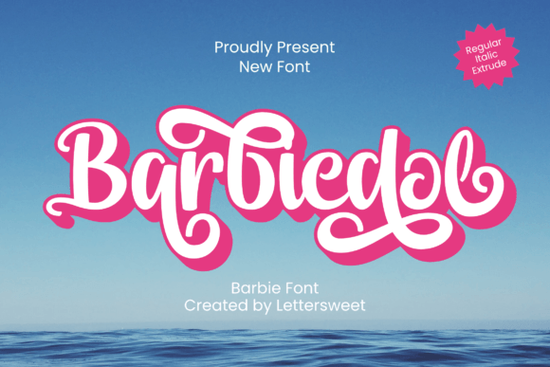
If you’ve been searching for a playful, feminine script that captures the charm of classic animated movies especially those with pink convertibles and dreamy wardrobes you’ll want to take a closer look at the Barbiedol Font. Designed with whimsy and elegance in mind, this script font draws direct inspiration from the visual style of Barbie films, making it ideal for invitations, greeting cards, apparel designs, and more. What really sets Barbiedol apart is its generous set of alternate characters and decorative swashes, all easily accessible thanks to PUA (Private Use Area) encoding.
What kinds of projects work best with Barbiedol?
This font shines in contexts where personality and flair matter most. Think birthday party invites, boutique branding, baby shower decor, or custom merch for teen-focused brands. Because of its movie-inspired aesthetic, it also pairs beautifully with nostalgic or fantasy-themed designs. If you run a print-on-demand shop, consider using Barbiedol for mugs, tote bags, or wall art targeting fans of retro animation or modern girly aesthetics.
For seasonal campaigns, you might combine it with other expressive scripts. For example, during back-to-school season, pairing Barbiedol with a relaxed handwritten style like the one found in our back-to-school handwritten font collection can add contrast and visual interest. Similarly, for Valentine’s Day or anniversary products, layering it alongside romantic scripts such as those in the dating month font selection creates depth without clashing.
How does Barbiedol compare to similar Creative Fabrica fonts?
Creative Fabrica offers many high-quality script fonts, each with its own mood. Take Valencia, for instance it’s elegant and slightly formal, great for luxury branding. Strawberry Smoothie leans more casual and bubbly, perfect for food-related or youth-oriented projects. Meanwhile, Brittany offers clean, modern curves that work well in minimalist layouts.
Barbiedol sits somewhere in the middle: it’s stylized but not overly ornate, friendly but still refined. Its strength lies in versatility within a specific vibe think “storybook meets stylish diary.” If your project calls for warmth and nostalgia without veering into childish territory, Barbiedol hits that sweet spot.
Tips for using Barbiedol effectively
- Avoid overusing swashes. While they’re fun, too many in one line can reduce readability. Use them selectively at the beginning or end of phrases.
- Pair with a simple sans-serif. Fonts like Montserrat or Lato provide clean contrast and keep your layout balanced.
- Test at different sizes. Some alternate glyphs may look cramped in very small text, so preview your design at actual output size.
- Use ligatures intentionally. Many of the alternates are designed to connect smoothly take advantage of that flow in headlines or logos.
Small business owners creating branded packaging, Etsy sellers designing digital downloads, teachers making classroom decor, or hobbyists crafting personalized gifts will all find value here. The commercial license included with most Creative Fabrica purchases means you can confidently use it on products you sell, whether physical or digital.
If you're already familiar with fonts like Valencia or Strawberry Smoothie, think of Barbiedol as your go-to when the project needs a touch of cinematic charm. And if you love delicate, flowing scripts, don’t miss exploring Brittany as a complementary option for more understated moments.
Quick checklist before using Barbiedol:
- Sketch out your layout first to decide where swashes or alternates will enhance (not overwhelm) your message.
- Always proofread alternate characters can sometimes look similar but aren’t identical!